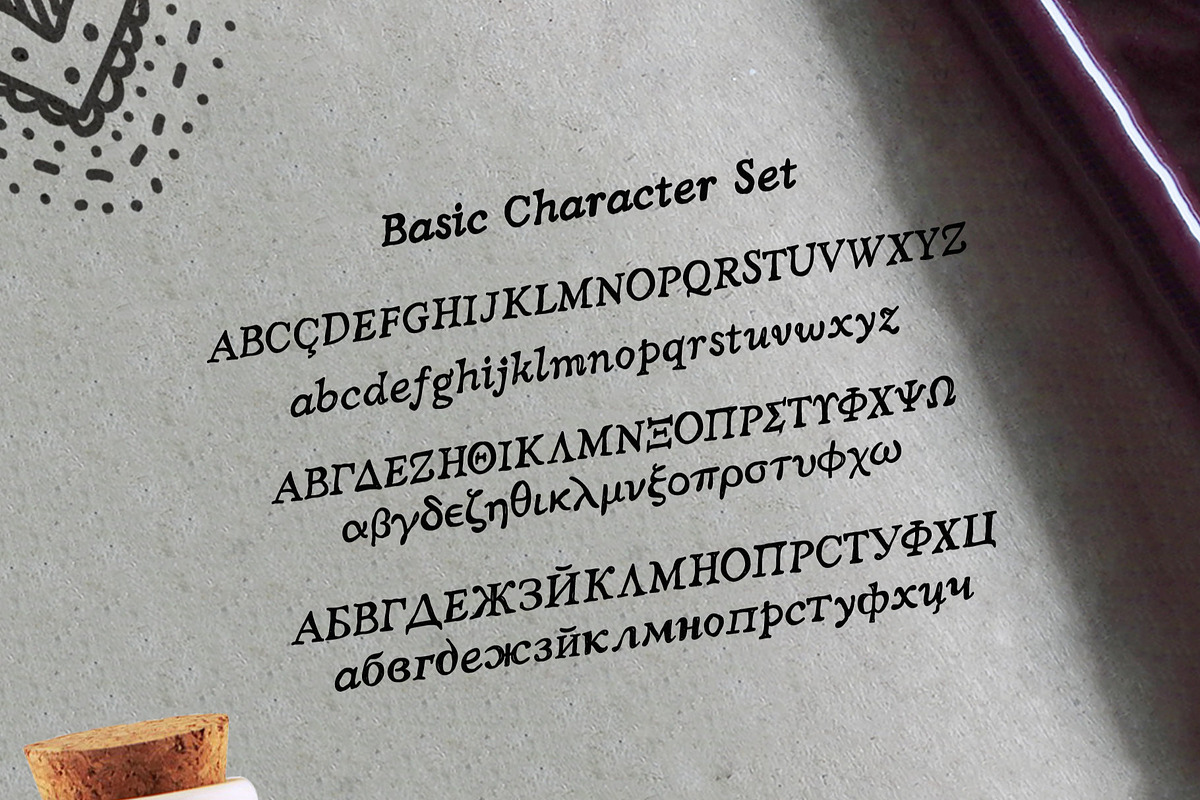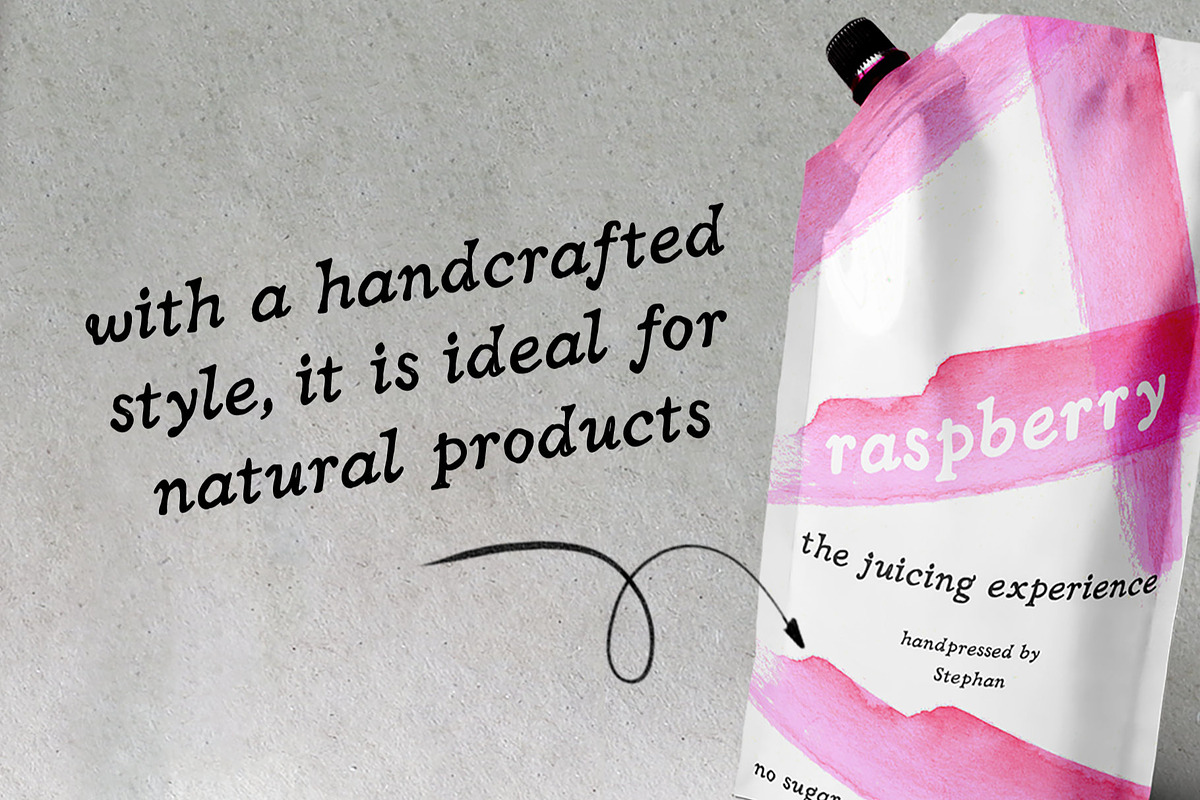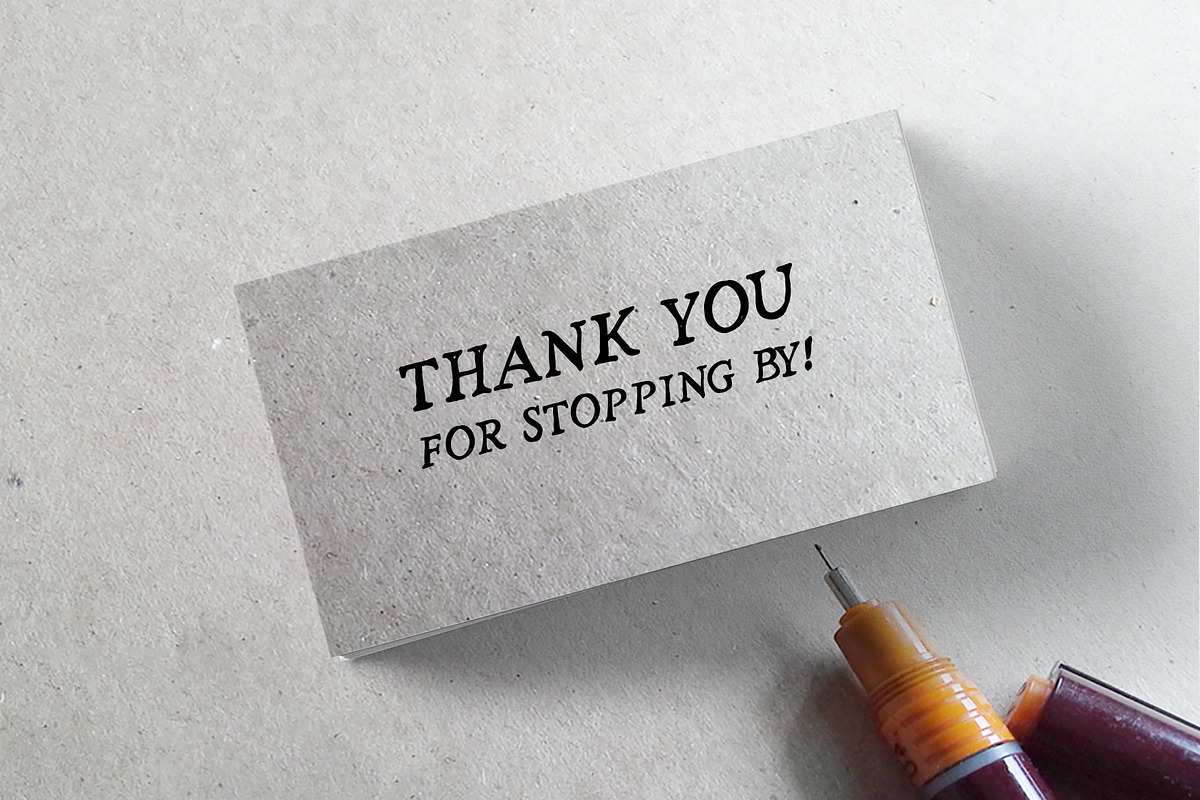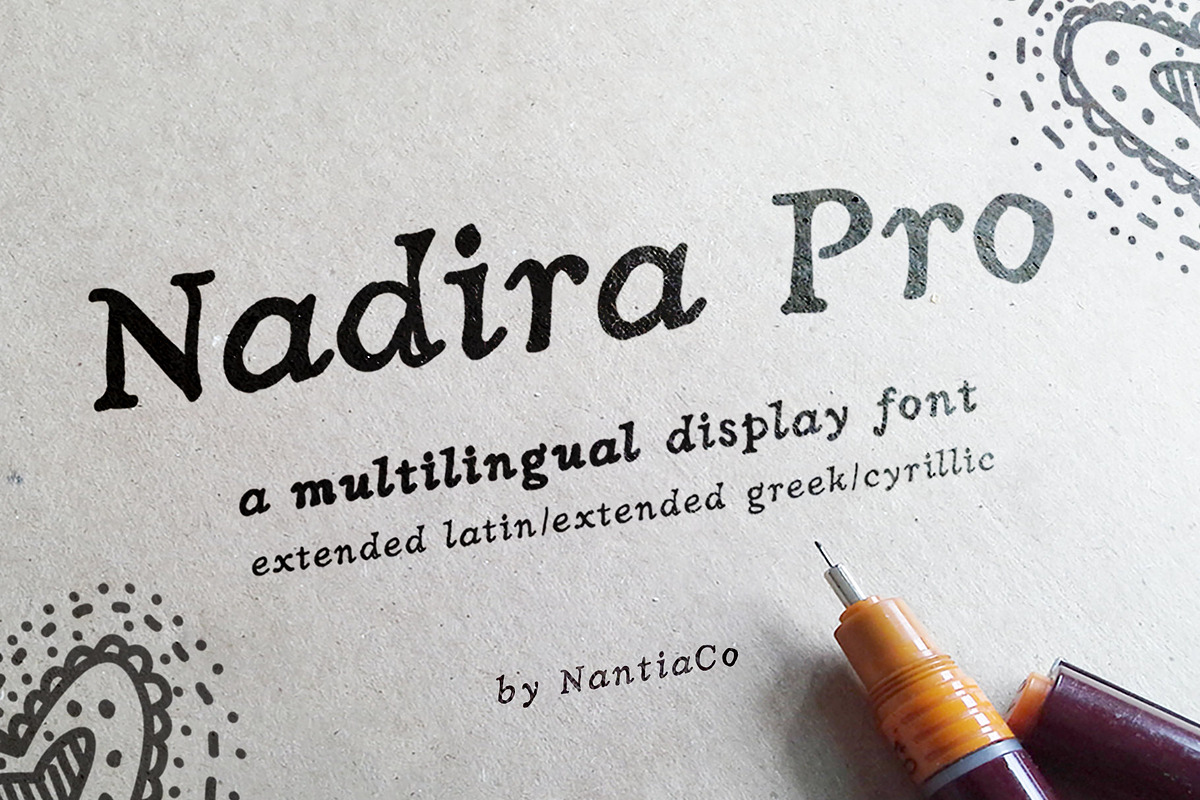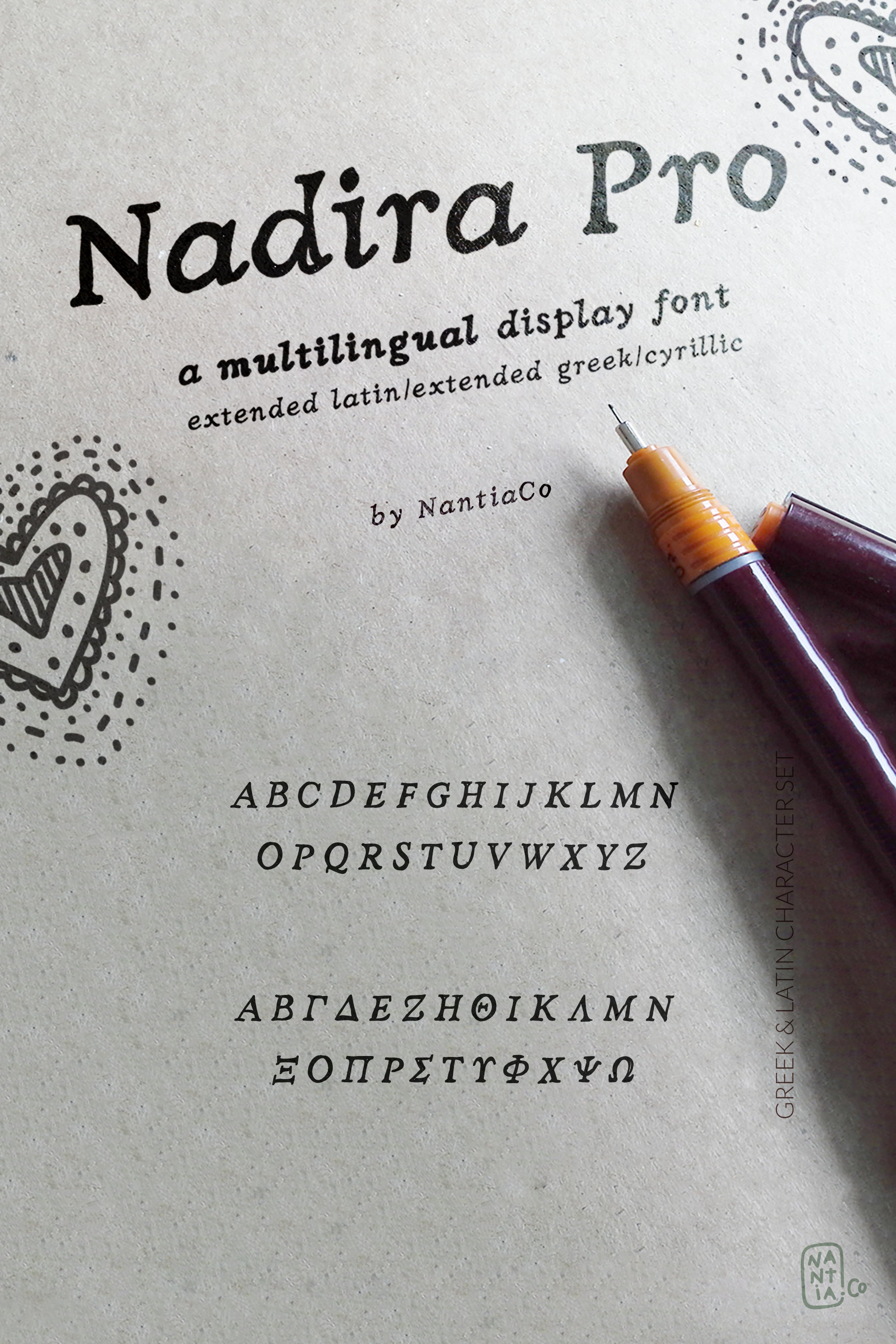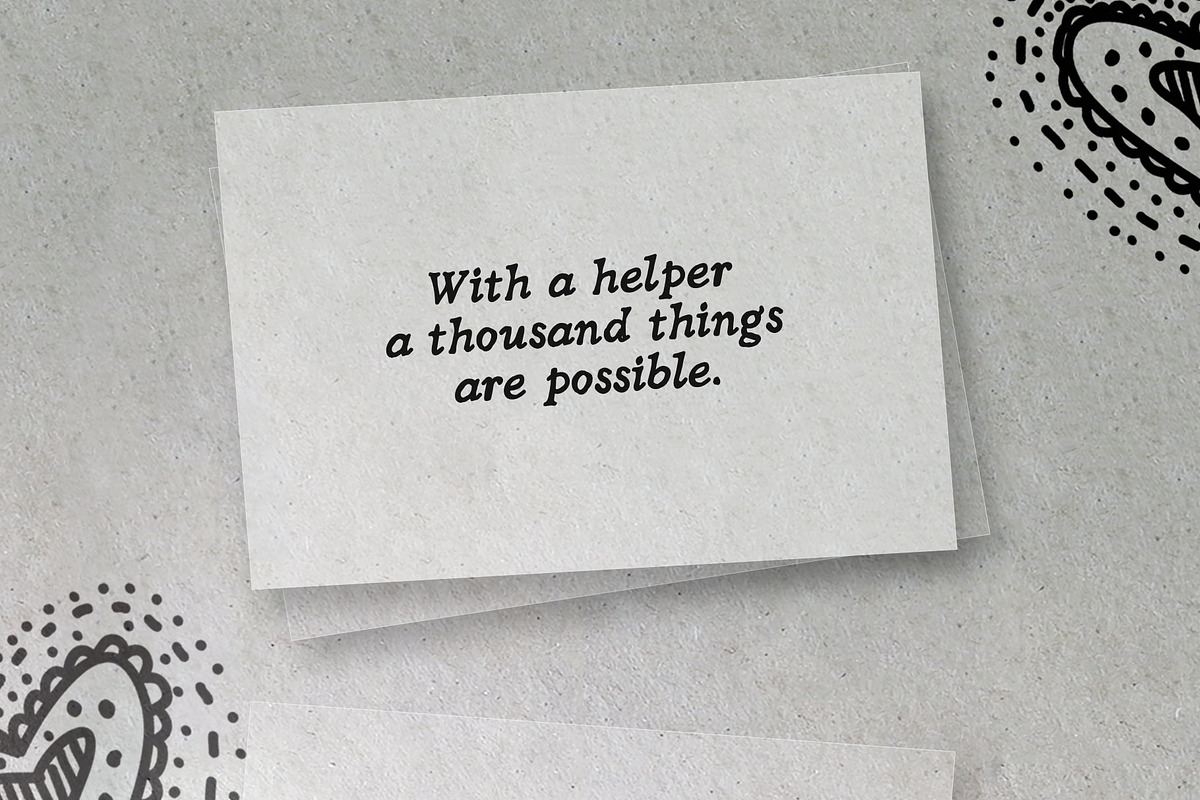
Nadira Pro Latin Cyrillic Greek font
Nadira Pro Font is a handcrafted multilingual font.
Nadira Pro Font is a high quality Greek hand drawn serif font, that looks formal enough on wedding invitations, but not too sketchy. It is a unique font that has a great variety of applications with multilingual support. Food packaging, restaurant menus, branding and wedding invitations are some examples of the numeral applications. The wide range of language support of the font makes it ideal for international food packaging. Especially if you are looking for a logo font, because of the fresh style of the typeface, it is the perfect design tool for natural organic product packaging and branding. The style of the font is shabby chic but still, is maintaining it’s legibility and balance so you can use it on small text sizes too.
Additionally, in the past few years, Nadira Pro Font has gained popularity among wedding invitation designers. Seems like the shabby chic vibes of this wedding font can pair perfectly with handcrafted / kraft / recycled papers and the results are amazing! For a nice pair font, try out the Nadirii Pro font!
Also, Nadira Pro Font supports extended Greek diacritics or Polytonic Greek. Therefore, this feature is perfect for writing Byzantine, Katharevousa and Greek-Orthodox texts, with a modern twist.
In an nutshell:
Nadira Pro Font is a hand-drawn, decorative, serif font with 882 glyphs in 2 weights including:
- Extended Latin characters,
- Extended Greek (polytonic Greek) characters,
- Cyrillic characters,
- punctuation marks,
- diacritics and
- numbers.
Finally, Nadira Pro Font supports over 30 languages: Albanian, Basque, Bosnian, Breton, Catalan, Chamorro, Chichewa_nyanja, Croatian, Cyrillic, Czech, Danish, Dutch, English, Estonian, Faroese, Finnish, French, Frisian, Galician, German, Greek, Hungarian, Icelandic, Italian, Latvian, Lithuanian, Malagasy, Maltese, Norwegian, Polish, Portuguese, Romanian, Serbian, Slovak, Slovenian, Spanish, Swedish, Turkish, Welsh.